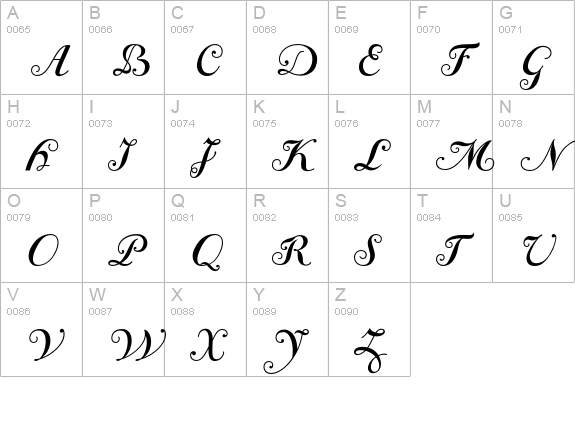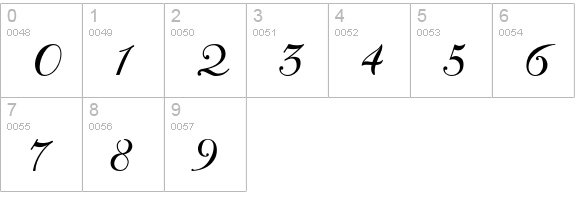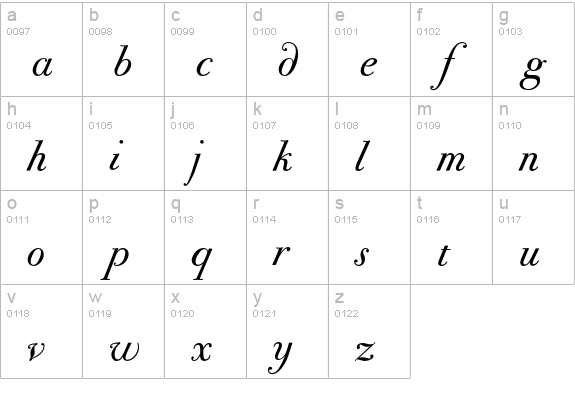
BodoniClassic-Chancery font exudes elegance and sophistication with its graceful curves and classic design. This timeless typeface beautifully blends the traditional characteristics of Bodoni with a touch of calligraphic flair, giving it a unique and refined look. The delicate swirls and ornate details of BodoniClassic-Chancery make it perfect for adding a touch of sophistication to any project, whether it's a wedding invitation, a formal event announcement, or a high-end branding project. The best part is that BodoniClassic-Chancery font is available for free download at FontsMarket.com, making it easily accessible to designers and creatives looking to elevate their work with a touch of timeless beauty. Don't miss out on this stunning font that combines the best of both Bodoni and calligraphy – download BodoniClassic-Chancery today and add a touch of elegance to your designs.